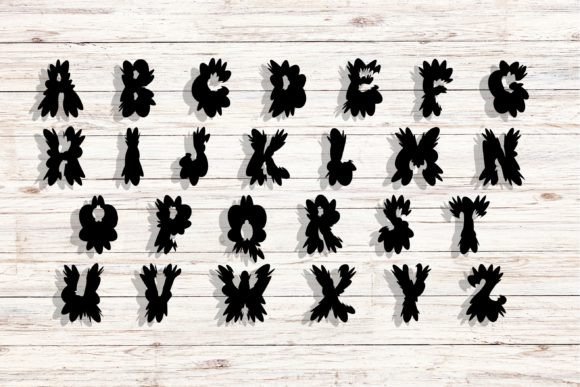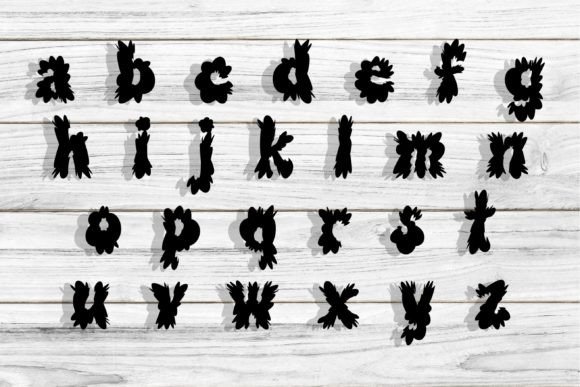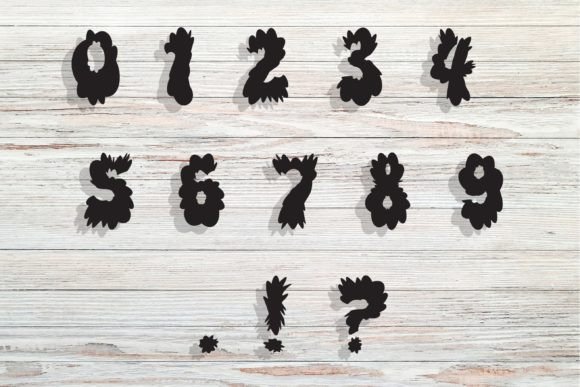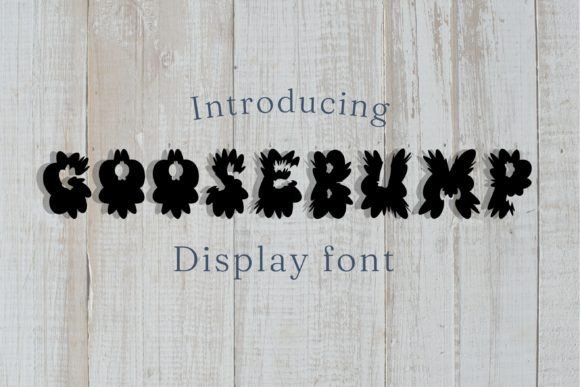
Introduction to Goosebump Font
Goosebump is a unique decorative font with a stunning, maybe creepy look.
It is suitable for Halloween, the title for horror books, or wording designs for products like mugs or shirts This typeface will be a fantastic addition to your library of fonts, regardless of the subject, as it has the ability to improve any design.
Key Features of Goosebump Font